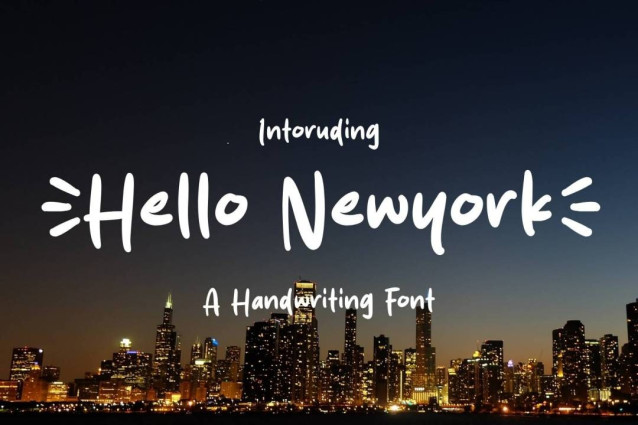
Hello Newyork Font
Hello Newyork Font is a simple and friendly handwritten font. Its natural and unique style makes it incredibly fitting to a large pool of designs. The only limit is your imagination!